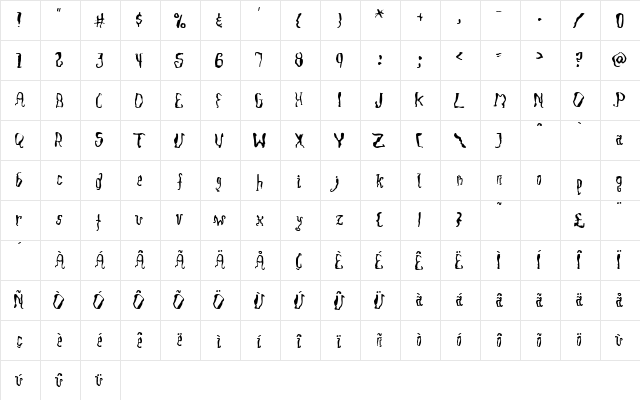
SlackScript Regular
Design Context for SlackScript Typeface
SlackScript brings a calligraphic fluidity to the page — its connecting strokes and expressive curves give it an unmistakably human quality.
Font Pairing: Combine SlackScript with a simple geometric sans for maximum contrast — the tension between flowing curves and clean structure is a classic typographic pairing.
Pro Tip: Pair SlackScript with a clean sans-serif for supporting text. The contrast between fluid script and geometric structure creates an elegant typographic hierarchy.